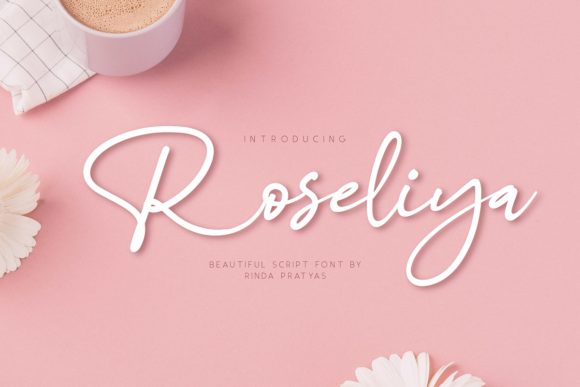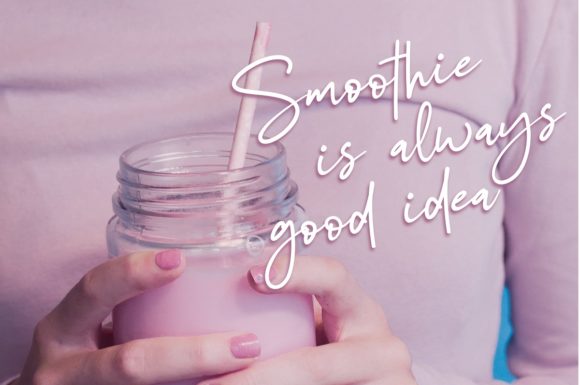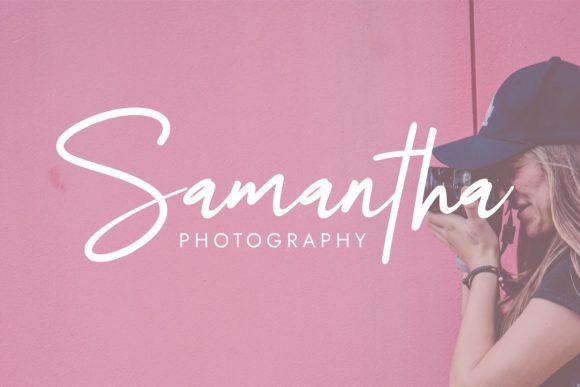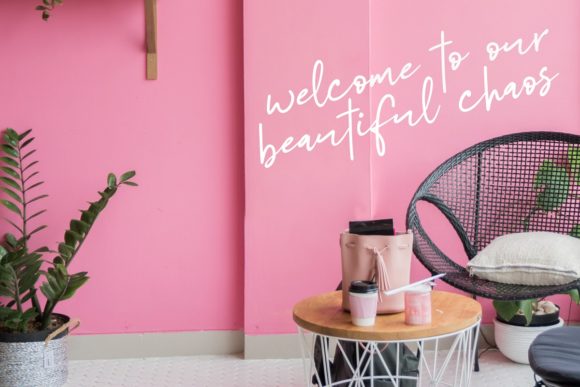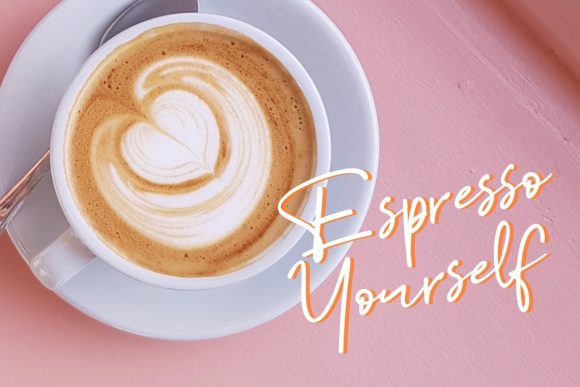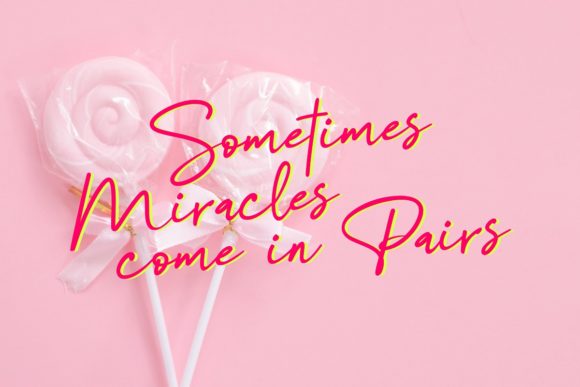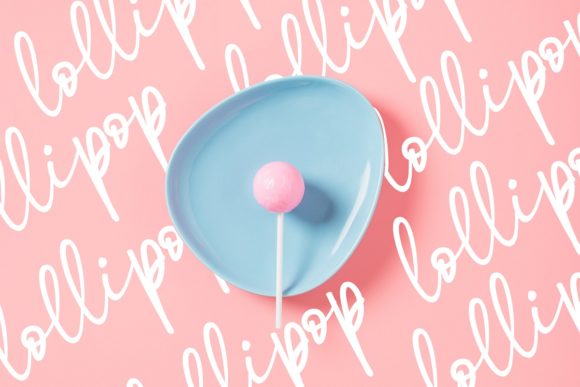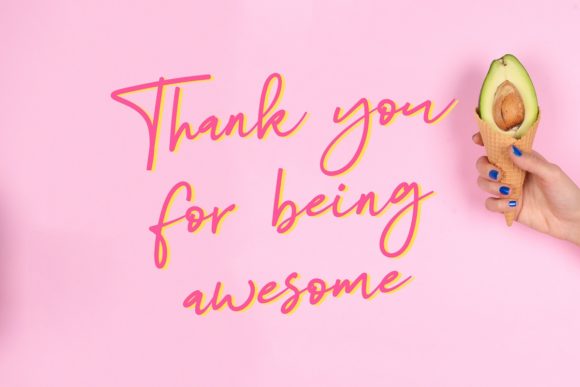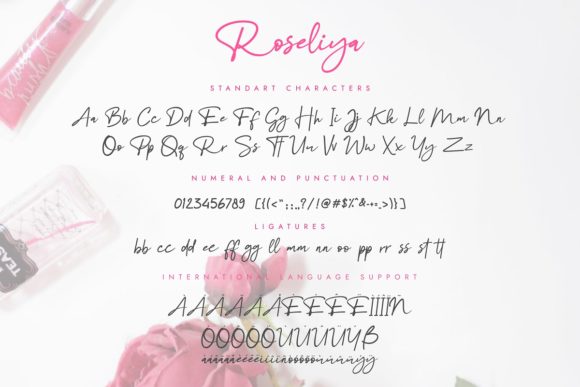
Roseliya Font
About Roseliya Font
Roseliya is a sweet and cool handwritten font with a unique style. Use it to add that romantic spark to your next crafting idea.